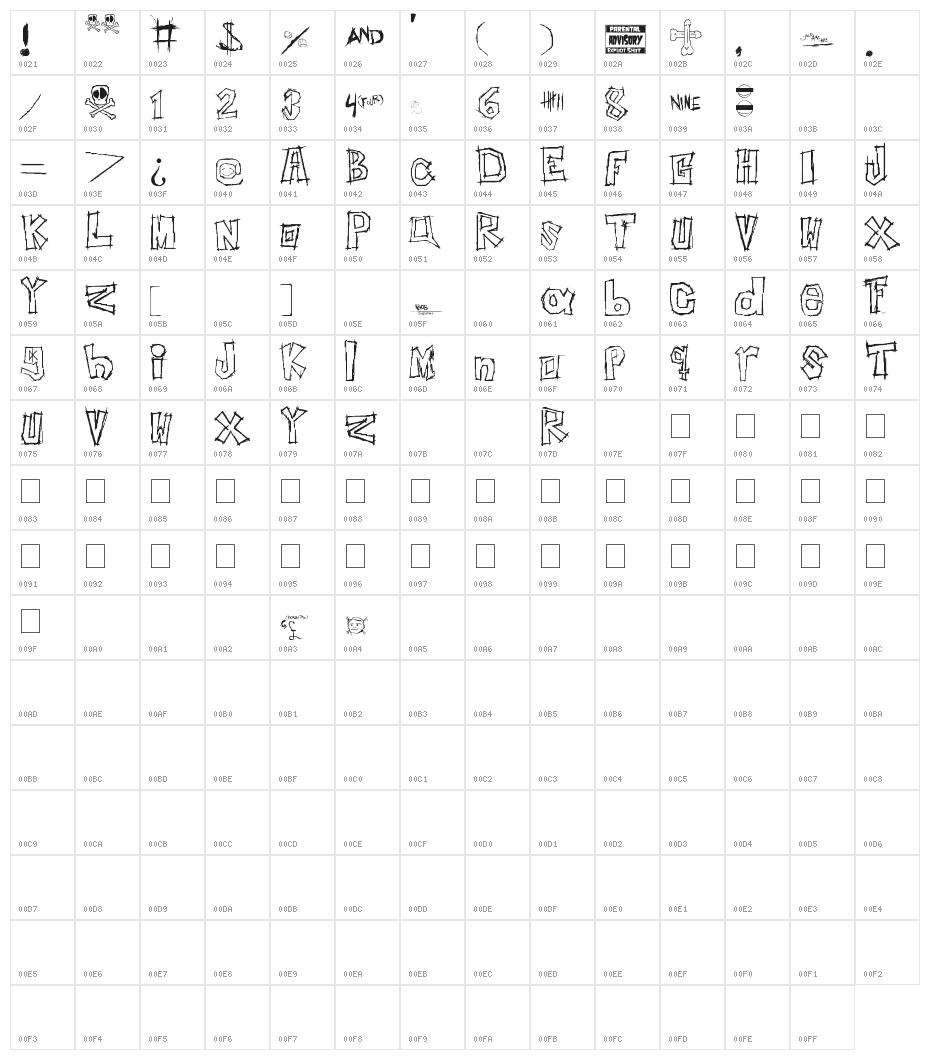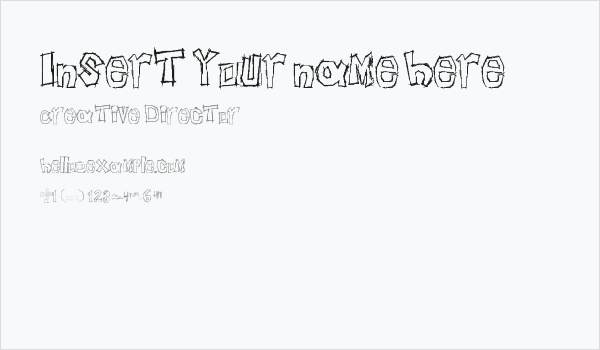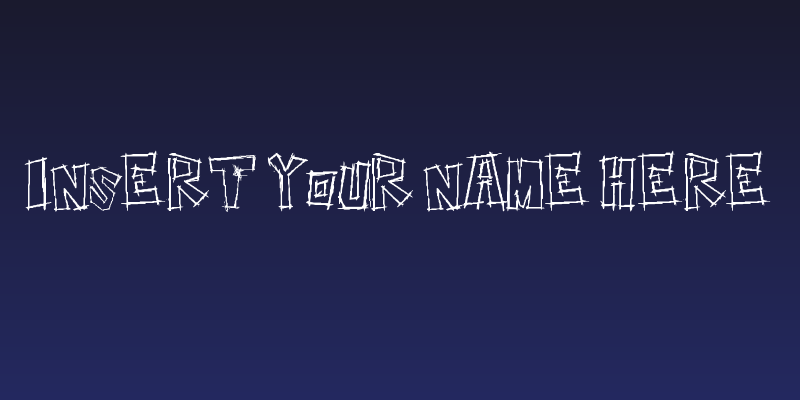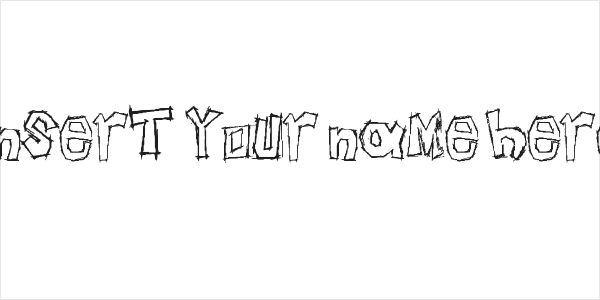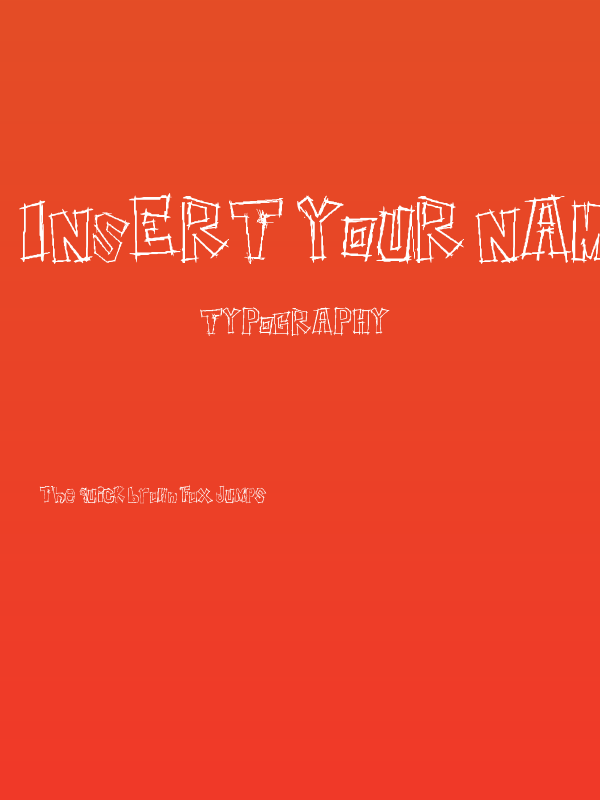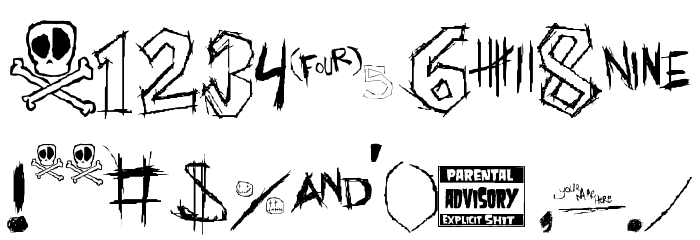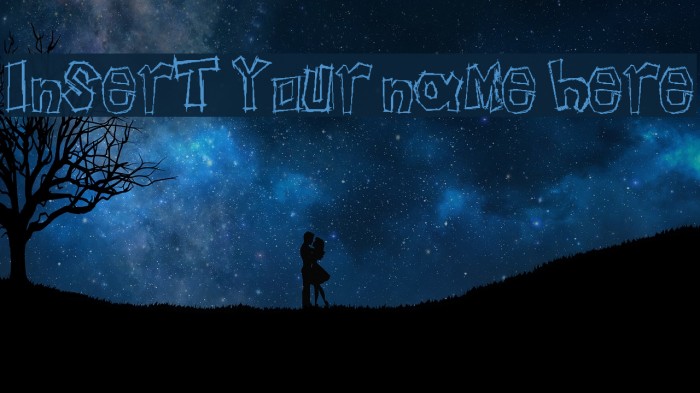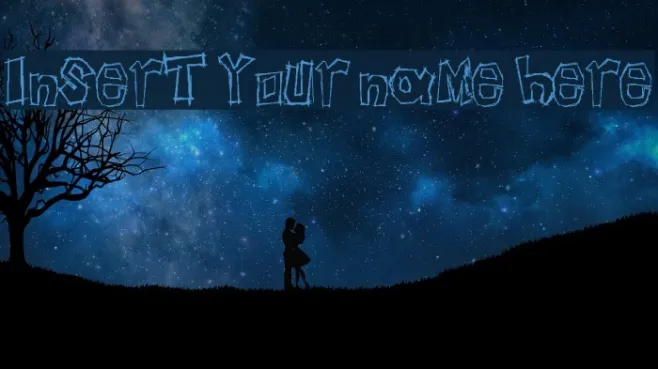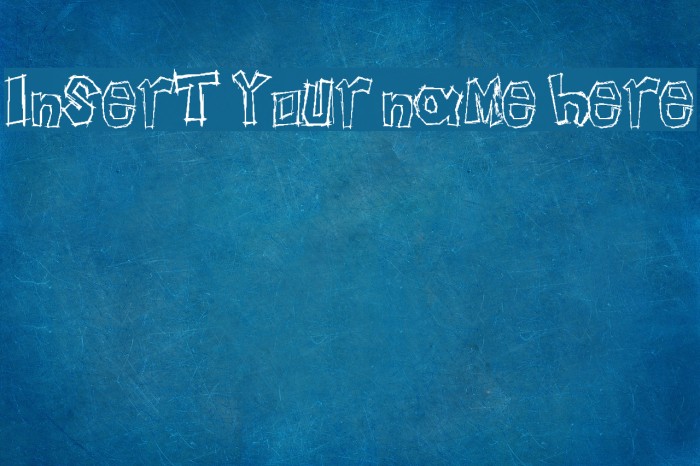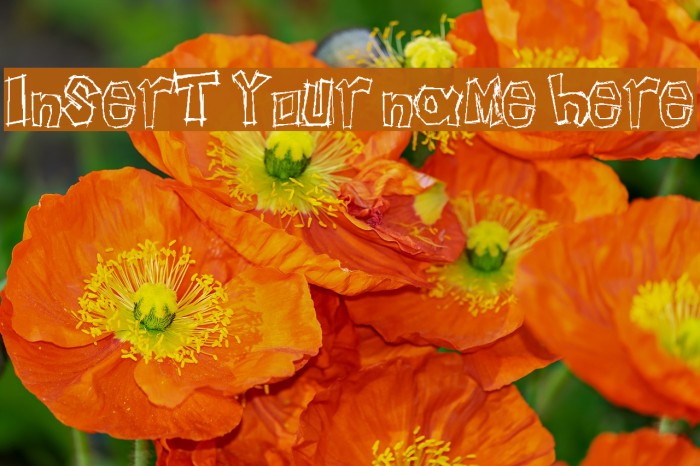
Insert your name here Font
Insert your name here Description
This font features a rugged, edgy design with a hand-drawn appearance. The characters are irregular and jagged, resembling barbed wire or graffiti art. Each letter has a unique, distressed look, contributing to an overall chaotic and rebellious aesthetic. The uppercase and lowercase letters maintain this rough style, with numbers and special characters following suit. The font's unconventional and bold design makes it stand out, ideal for projects that require a strong, impactful visual statement.
| Use Case | Logos, Posters, Album Covers |
| Proposed Projects | Perfect for album covers, posters, streetwear branding, or any project needing a bold, edgy look. |